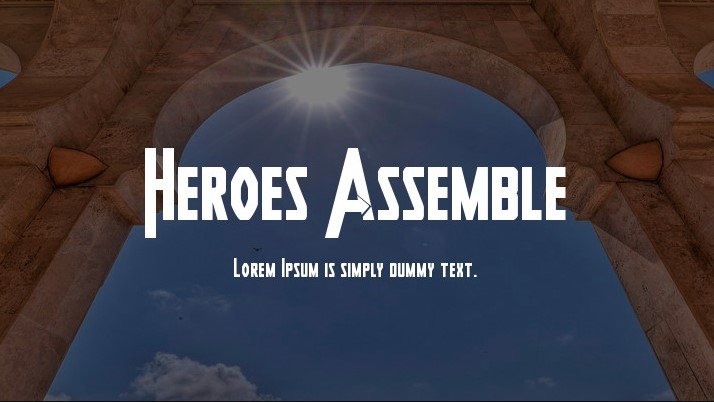
Introducing the incredible Heroes Assemble Font, featuring 218 unique characters and glyphs. This font was created and shared by Iconian Fonts. It was famously used in the Avengers movie logo and posters, garnering widespread popularity and high ratings.
The font is suitable and becomes perfect choice of logos, posters, cards, website designs and so on. Lets have a look on more details of this great font.